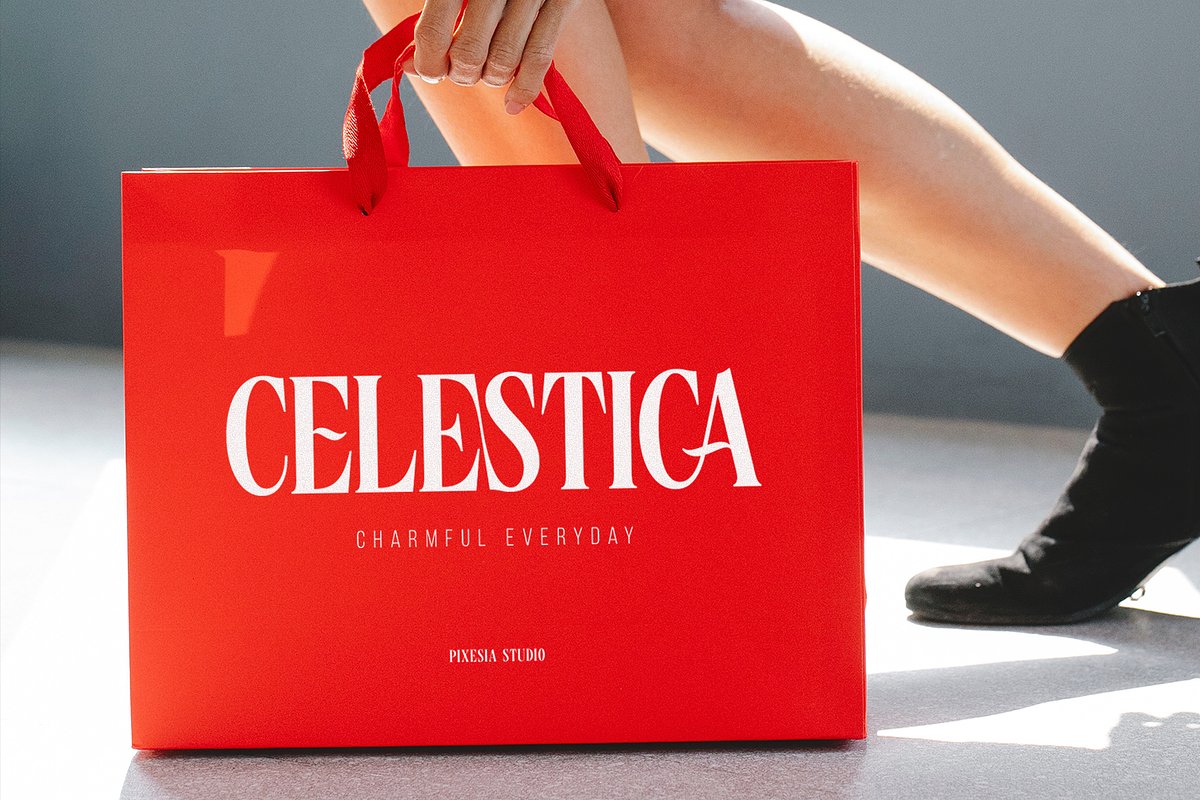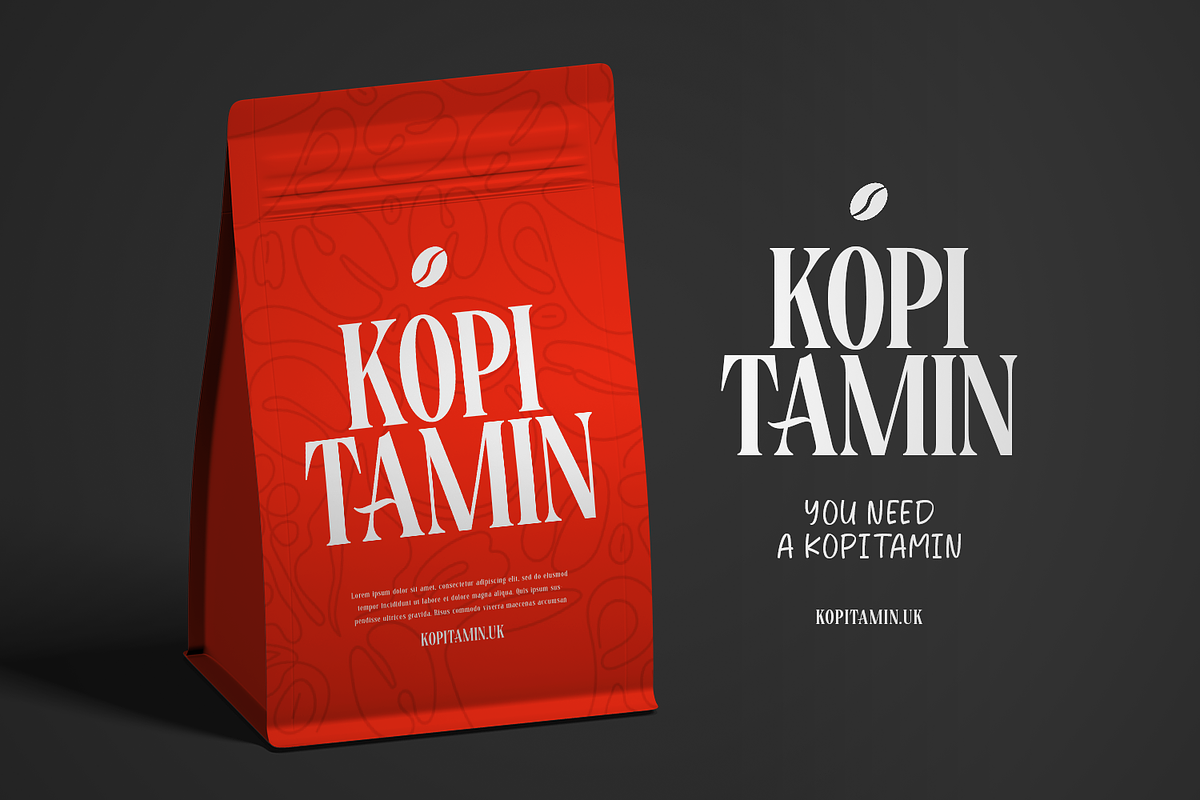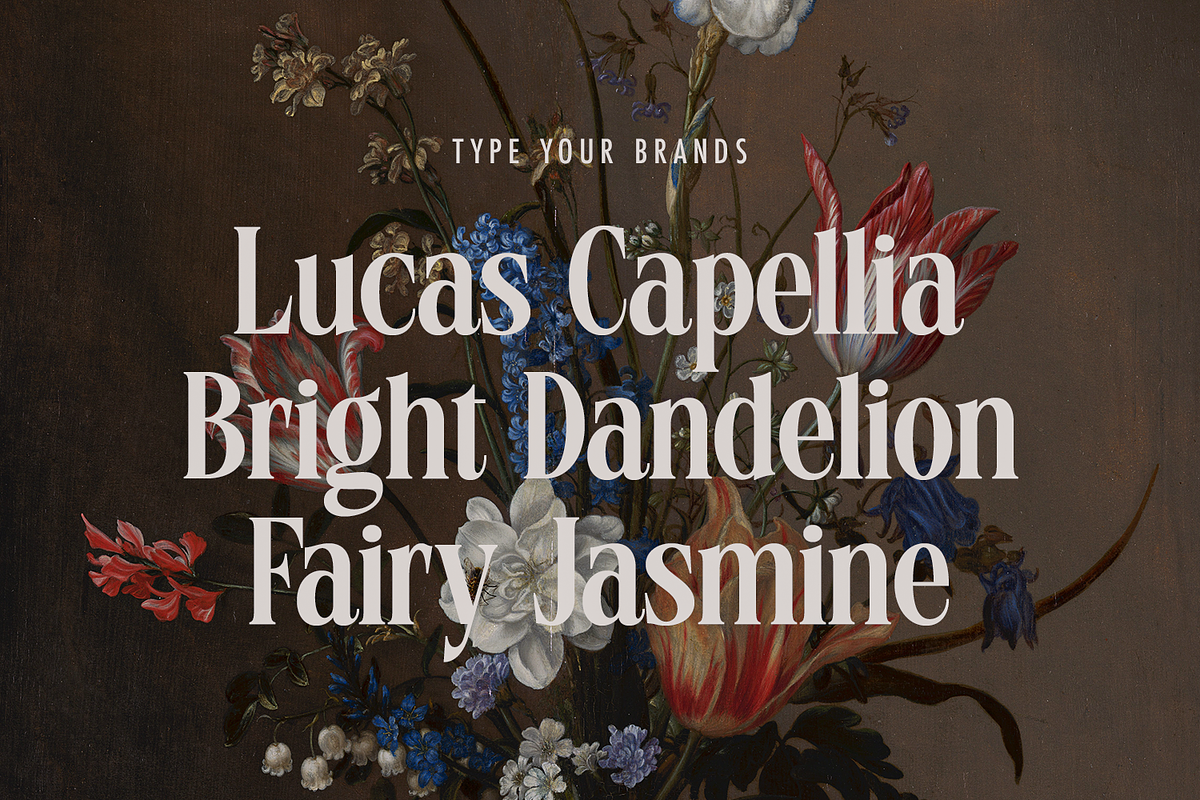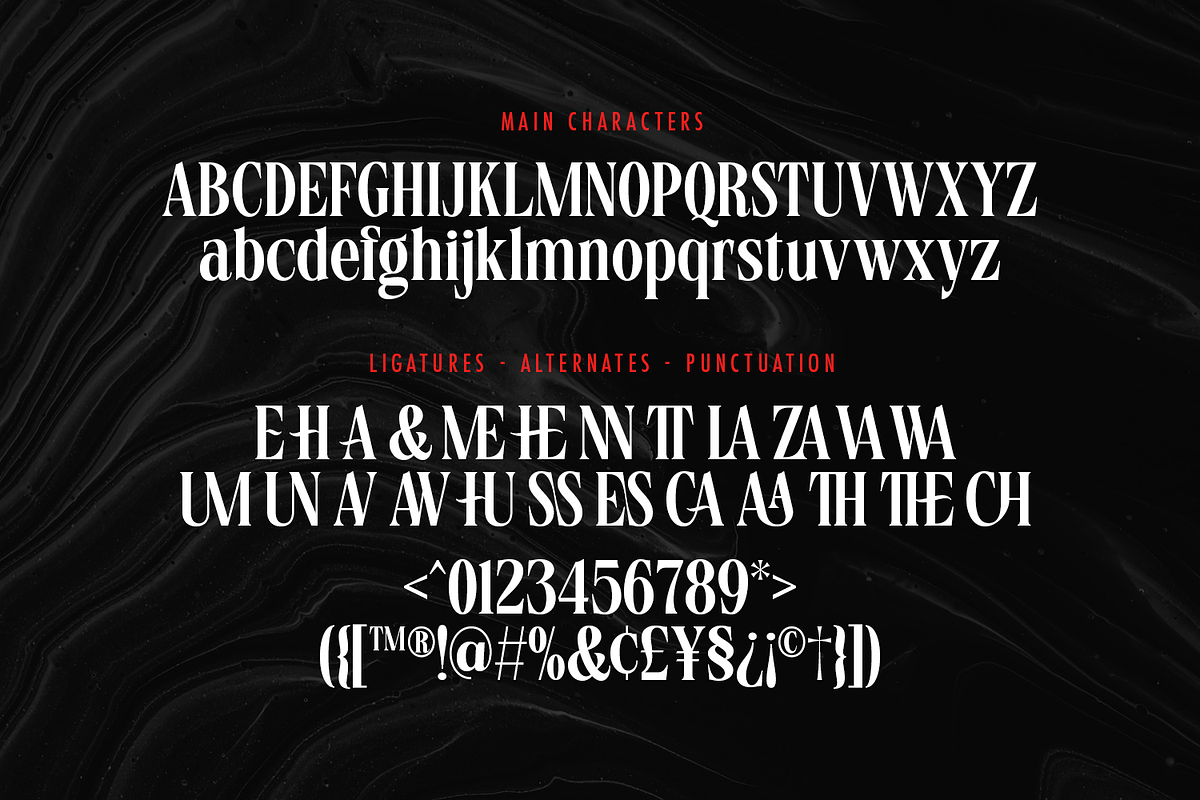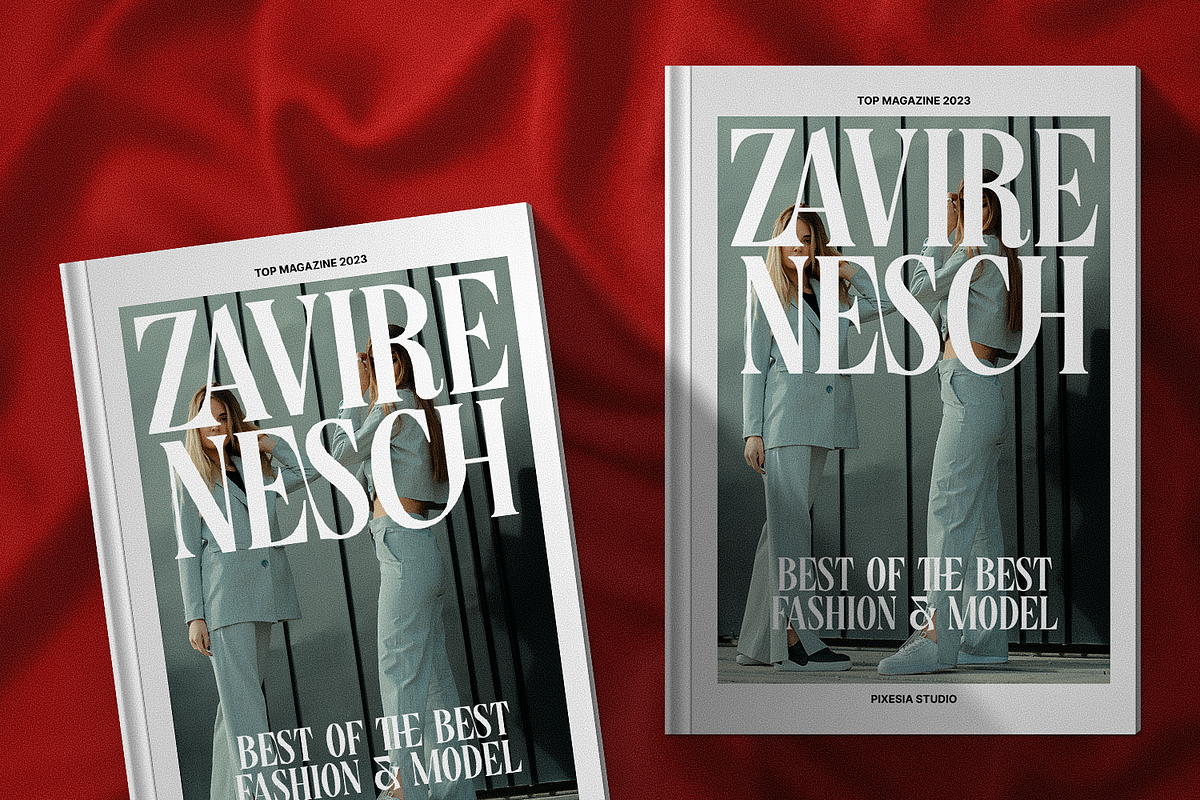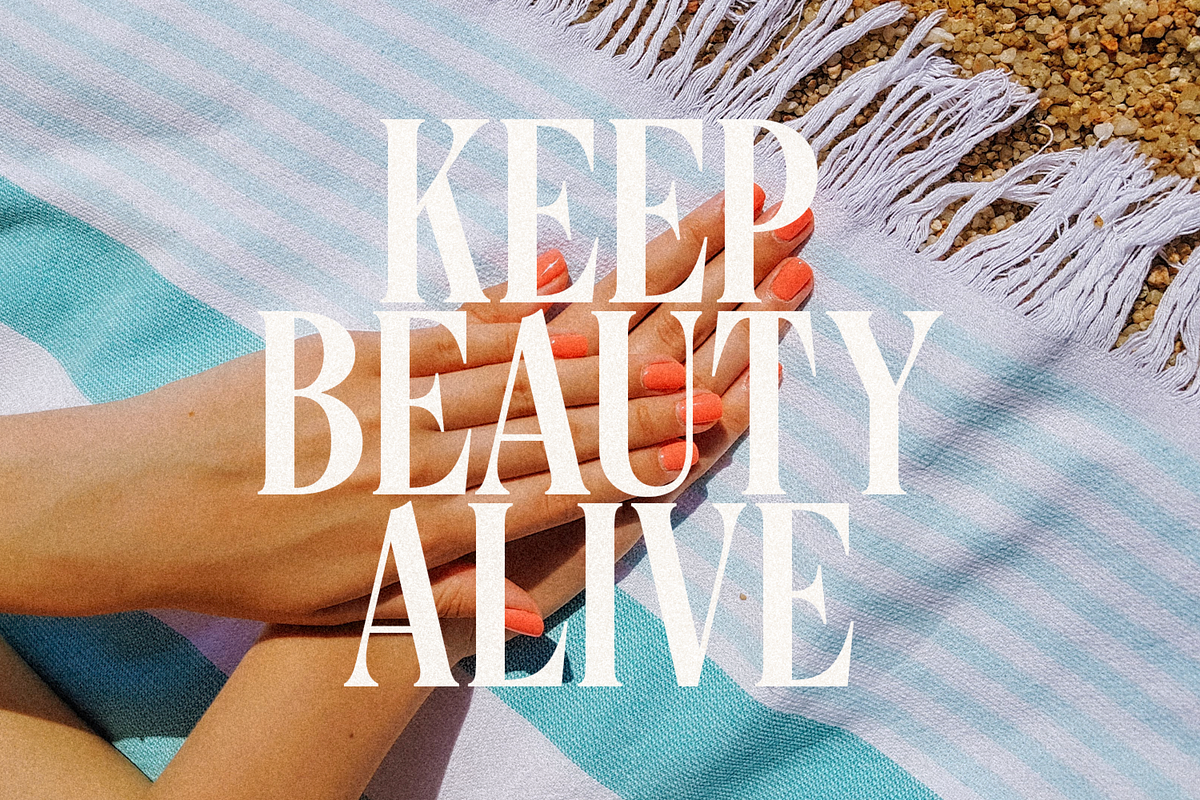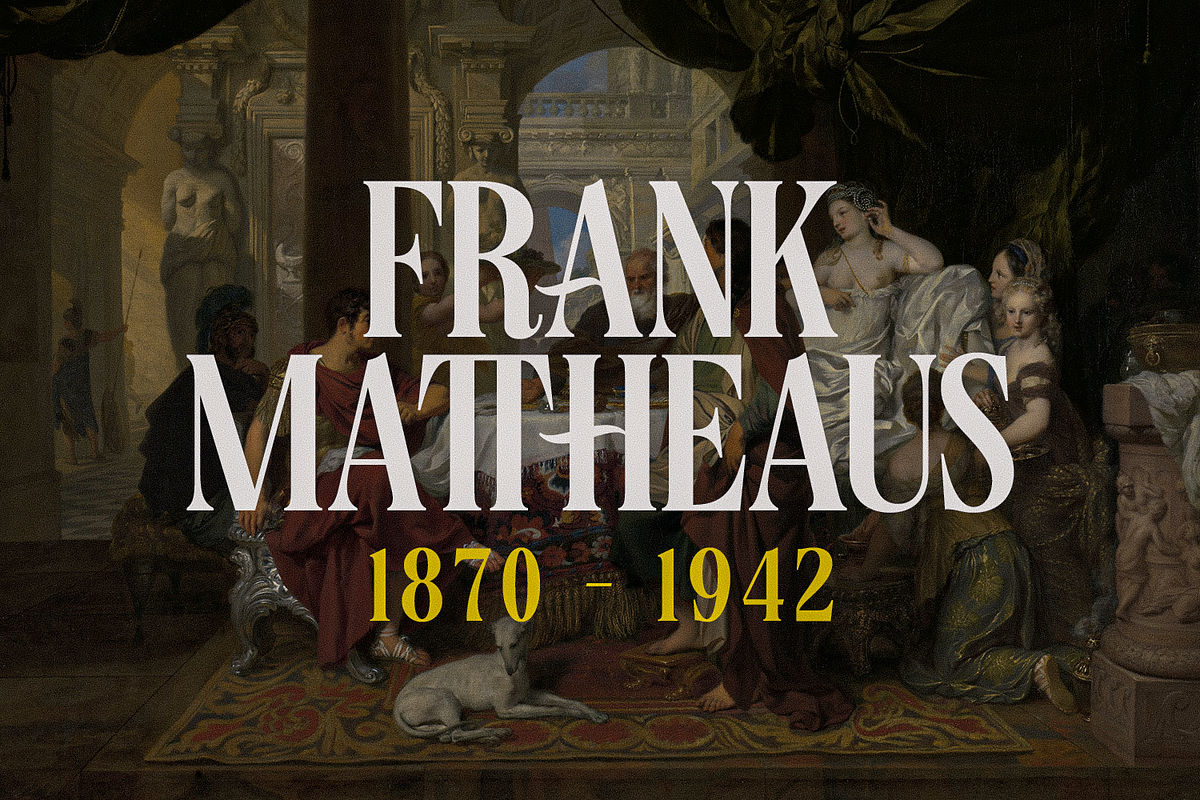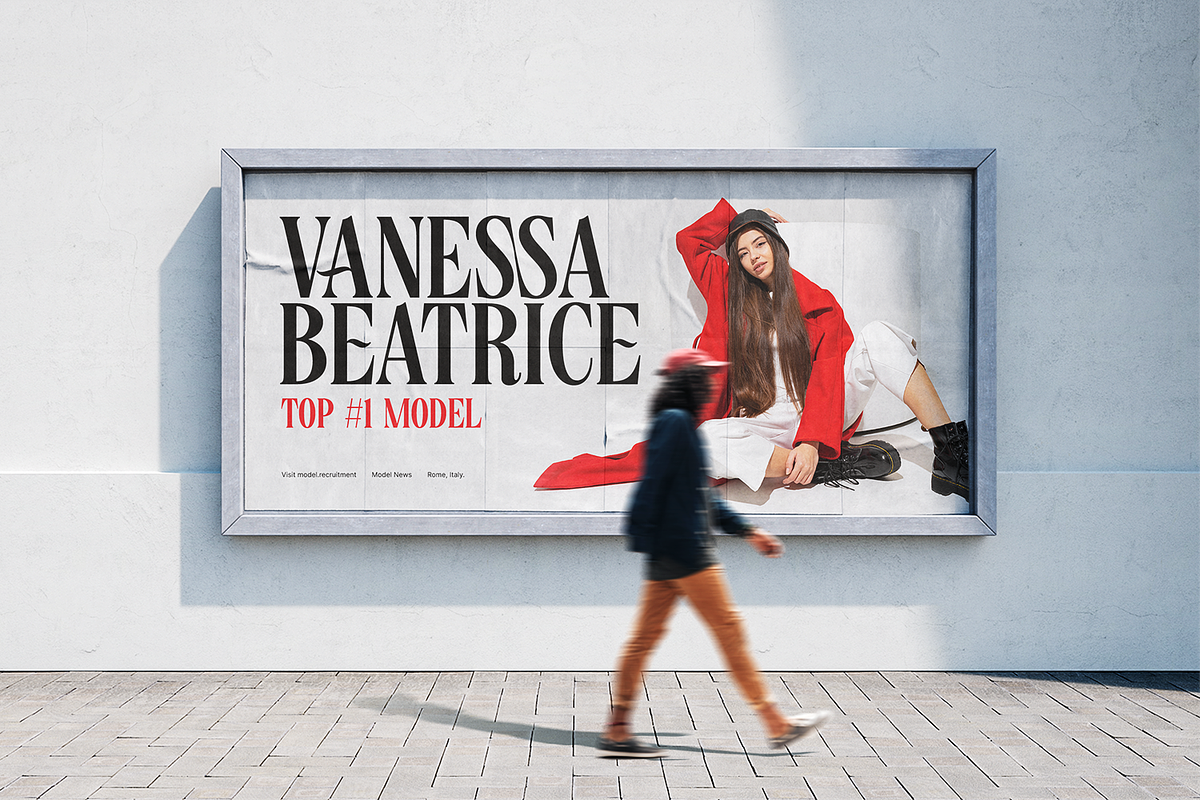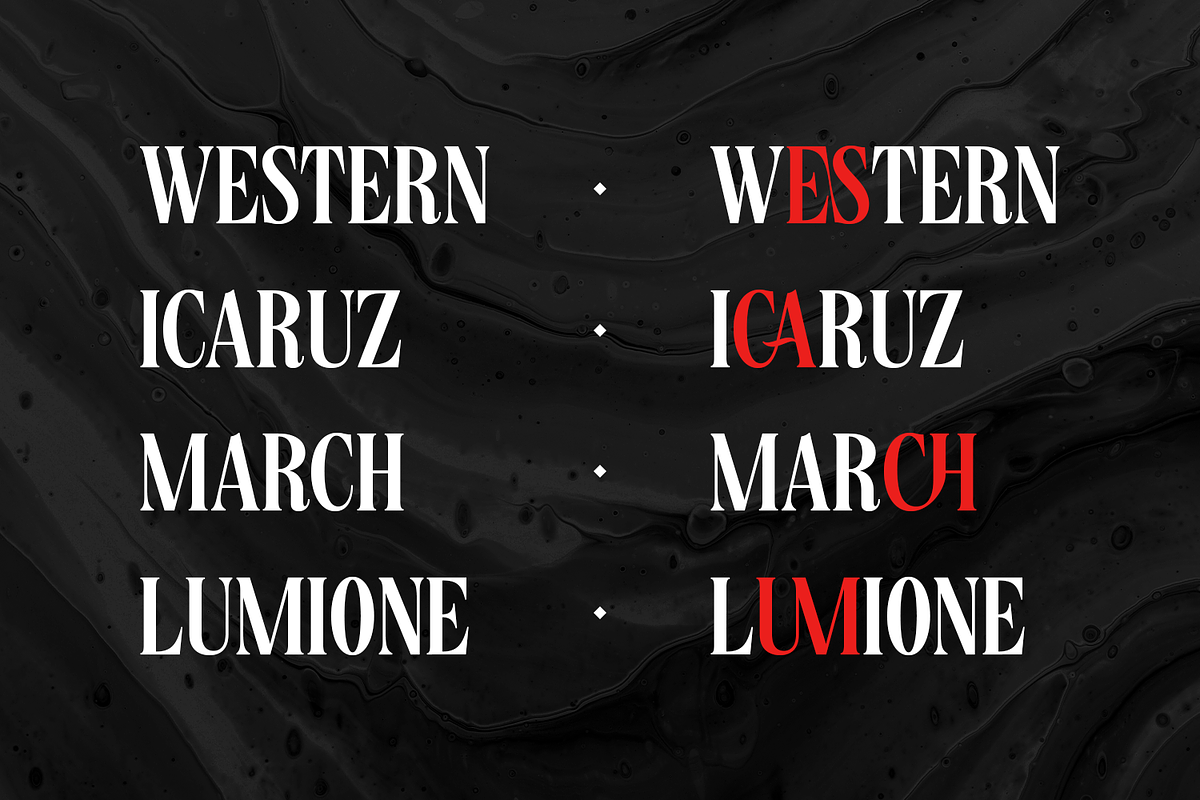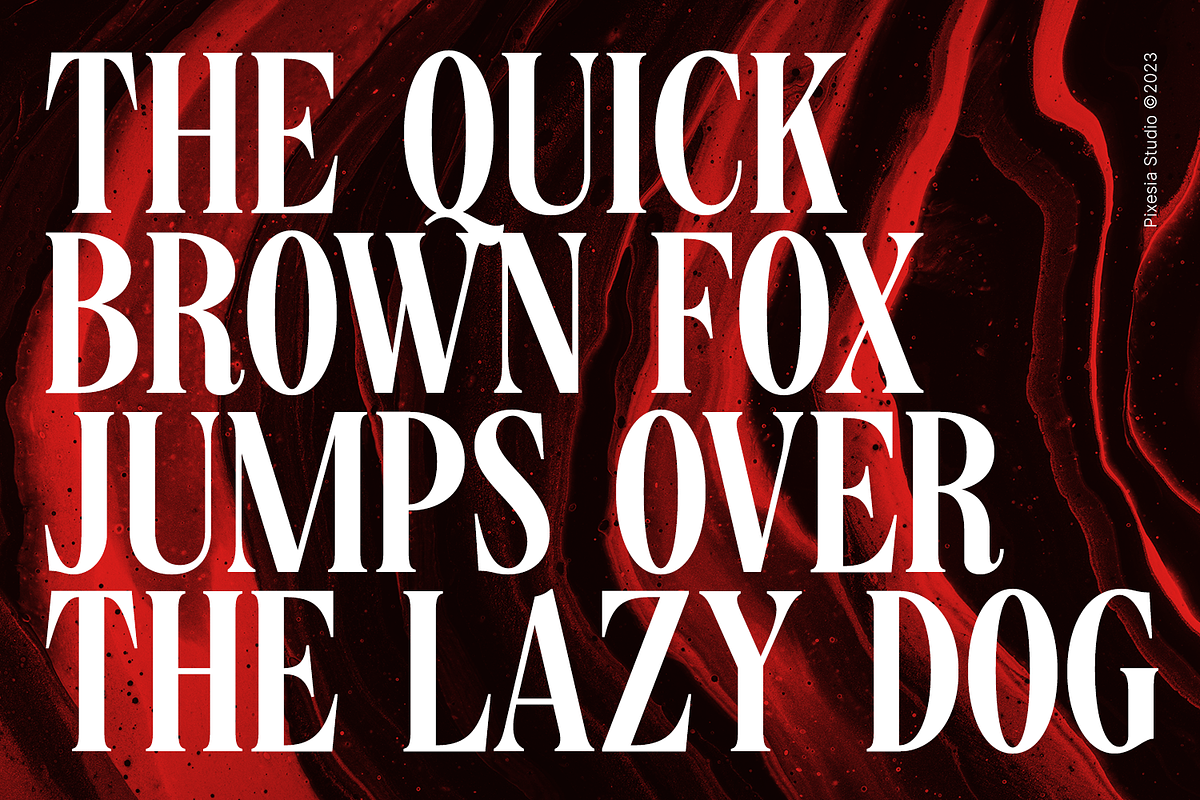
Merisca - Modern Condensed Serif
Introducing Merisca - Modern Condensed Serif Font
Merisca is a modern and stylish condensed serif font that is perfect for creating sleek and sophisticated designs. With its clean lines and condensed design, this font is ideal for headlines, logos, and other design elements that need to make a big impact in a small space. Its versatile design makes it a great choice for a wide range of projects, from branding and advertising to editorial design and more. Merisca supports multiple languages and has an extensive character set, making it a valuable tool for any designer looking to add a touch of sophistication to their work. Try Merisca today and elevate your designs!